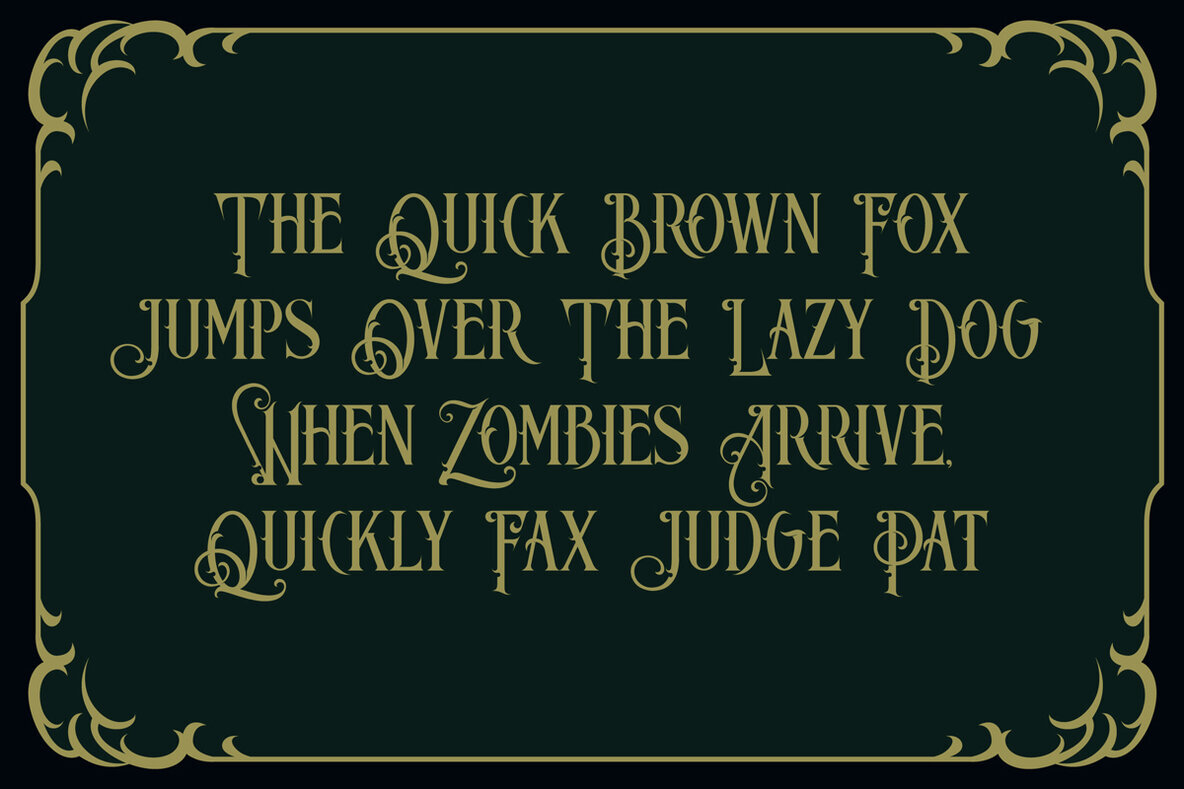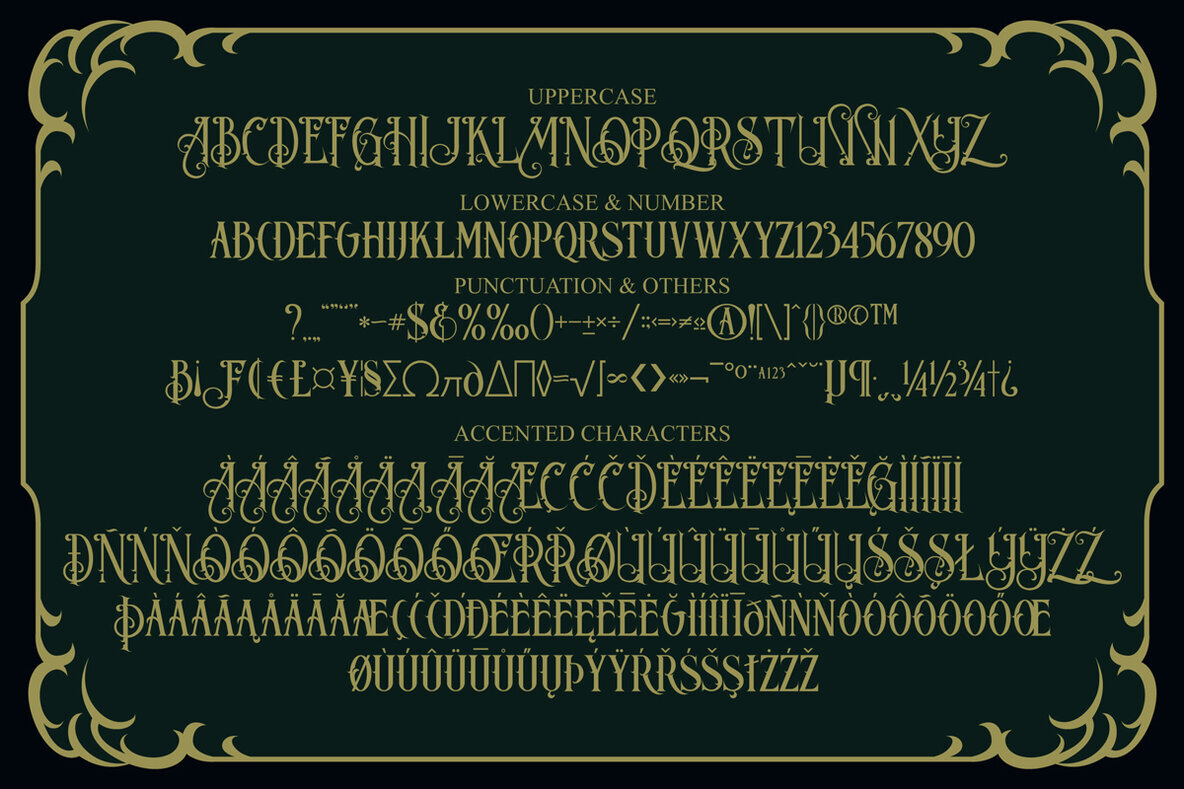
Blackpanther Font
Blackpanther Regular
Blackpanther is a distinctive display font designed for impactful visual applications. Ideal for a variety of uses, this typeface stands out with its bold and dynamic style. Blackpanther is perfect for enhancing several design projects, ensuring a memorable impression with its striking design.Blackpanther: Bold Display Typeface